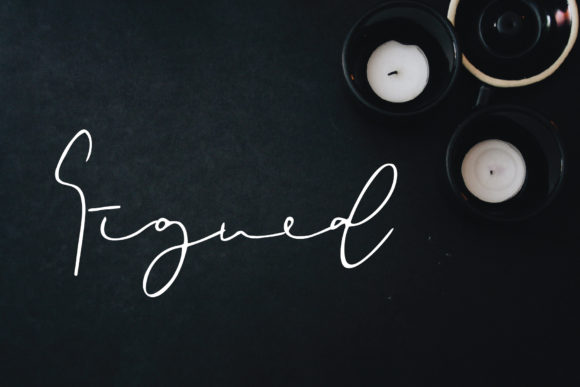
Prepare to be captivated as we introduce Signed - a remarkable, modern script that exudes authenticity and originality!
Imagine a font that seamlessly blends the charm of handwritten characters with the sophistication of digital design. Signed is that font, crafted to bring life and vibrancy to your creative visions.
With its captivating curves and elegant strokes, Signed offers a refreshing twist to traditional typography, making it the perfect choice for modern UI designs. Envision your website, app, or branding materials adorned with the distinctive flair of Signed, leaving a lasting impression on your audience.
But Signed is not merely a visual masterpiece; it's a font imbued with emotion and connection. The flowing lines evoke a sense of genuine communication, making it ideal for heartfelt messages, intimate invitations, or personal branding. Its versatility extends to logos, posters, and even packaging, adding a touch of allure and authenticity to every project.
Indulge in the beauty of Signed and watch your creations soar to new heights! Embrace its individuality and let your designs radiate with life and authenticity.
Step into the realm of captivating typography and experience the magic of Signed - the font that breathes life into your designs!